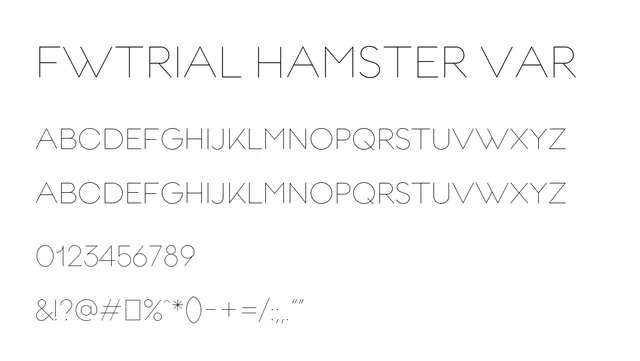
FwTRIAL Hamster VAR
FwTRIAL Hamster VAR, modern, clean
Ultra-light geometric sans typeface with exceptional openness and refined proportions—embodies minimalist elegance.
Perfect for luxury branding, premium digital interfaces, and contemporary editorial design. Its geometric structure and thin weight make it ideal for high-end applications where sophistication and clarity are essential.
Pairs effectively with serif fonts like Abril Fatface for display contrast, or with controlled geometric sans weights like Poppins for comprehensive typographic systems.